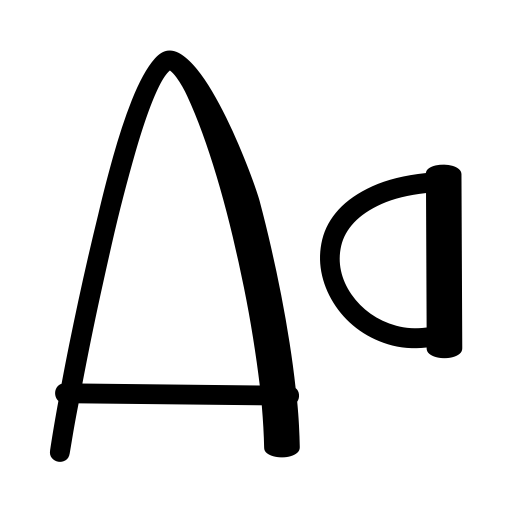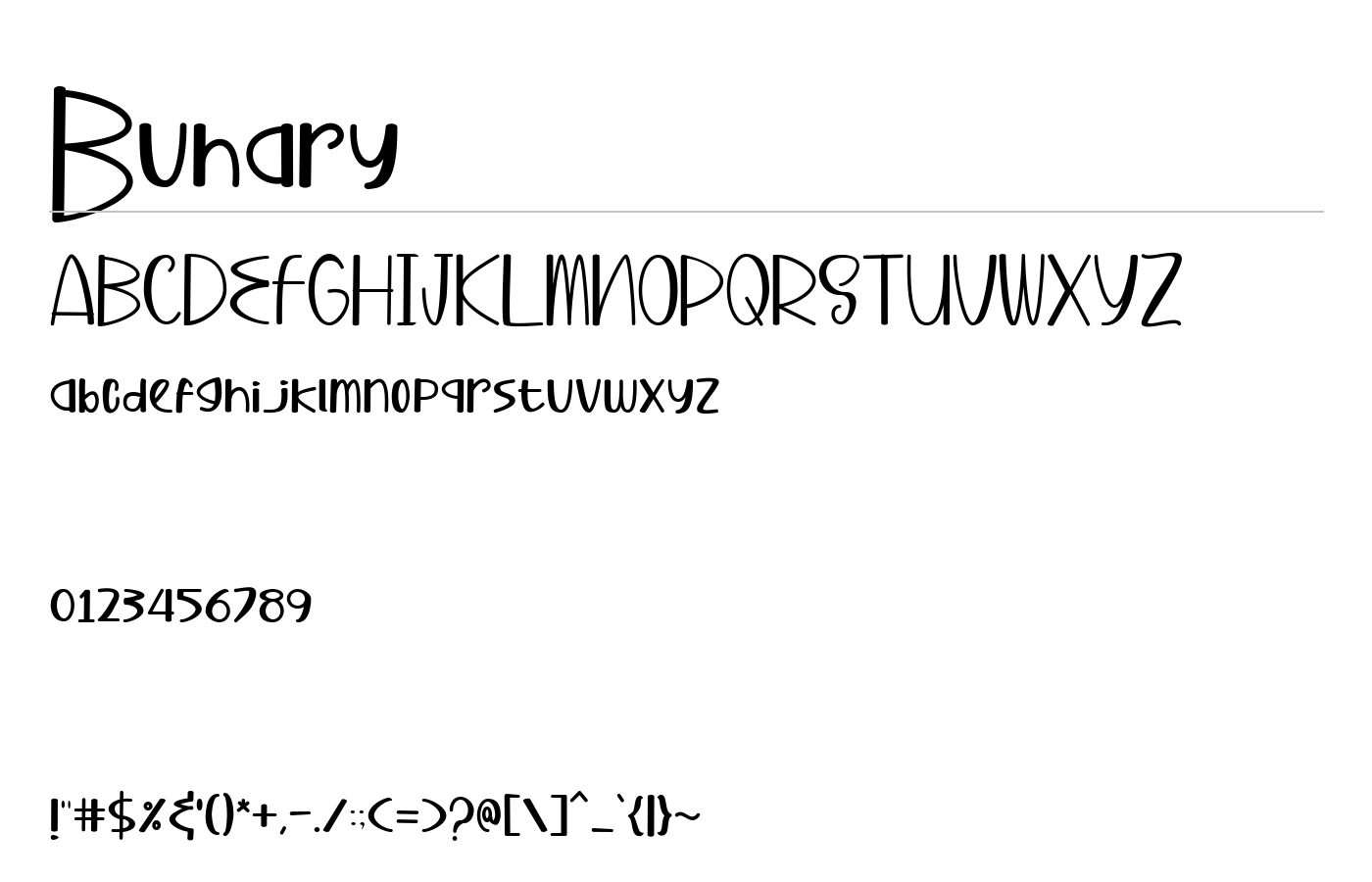
Buhary is a playful and whimsical sans serif font with a hand-drawn feel, featuring irregular, slightly tall letterforms and a casual, friendly style. Its light weight and quirky shapes create an approachable and creative vibe, making it ideal for informal branding, children’s designs, and fun, artistic projects. This font works best in headlines and logos where a cheerful, unique personality is desired.
Buhary Font
About Buhary Font